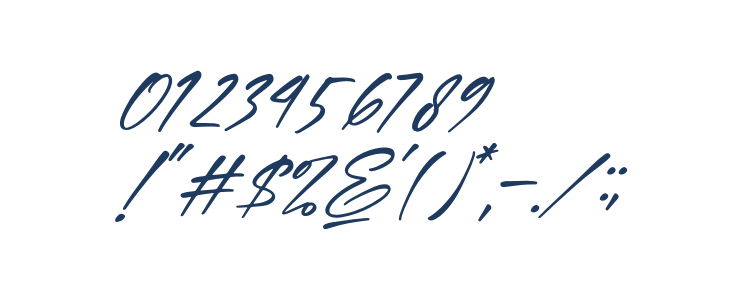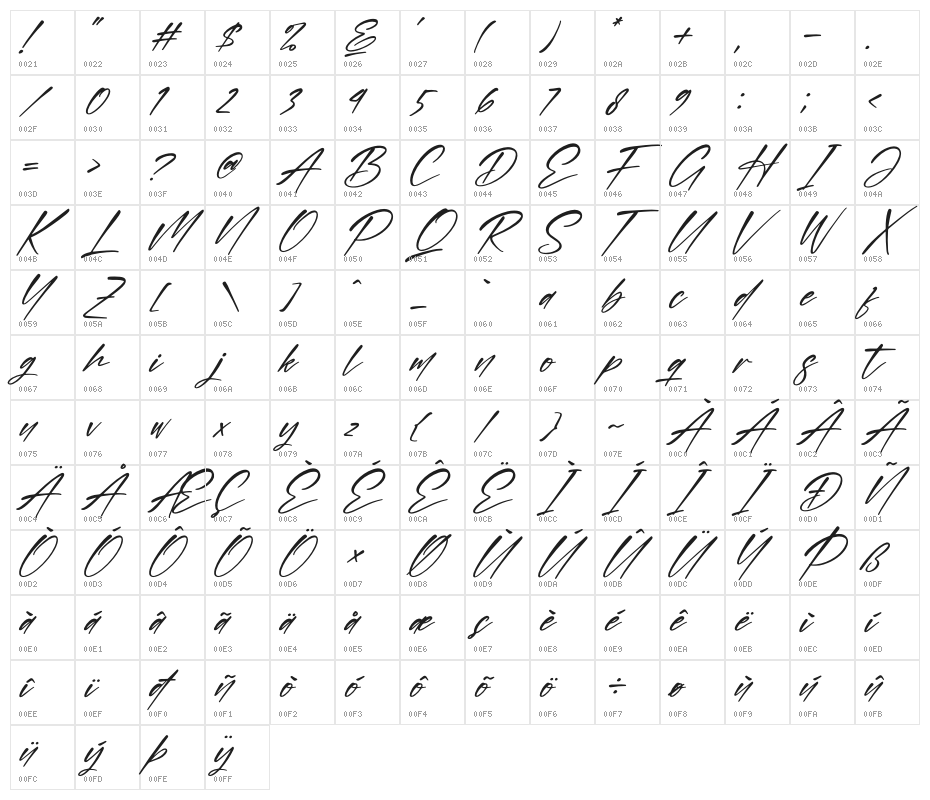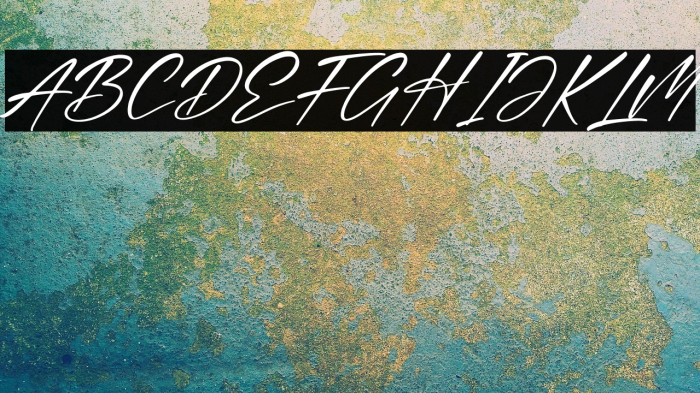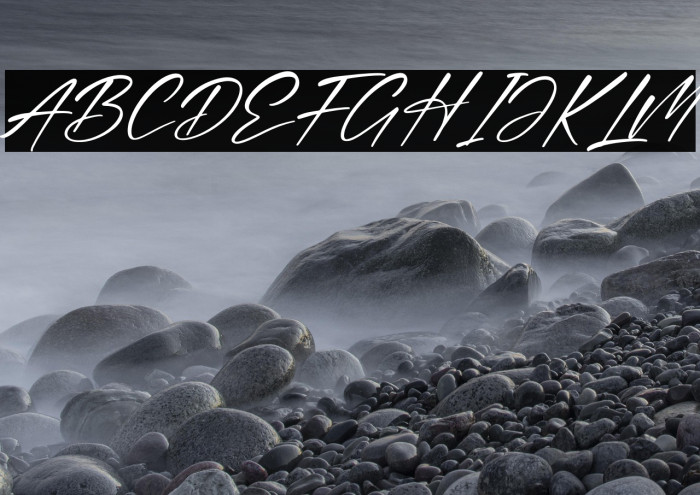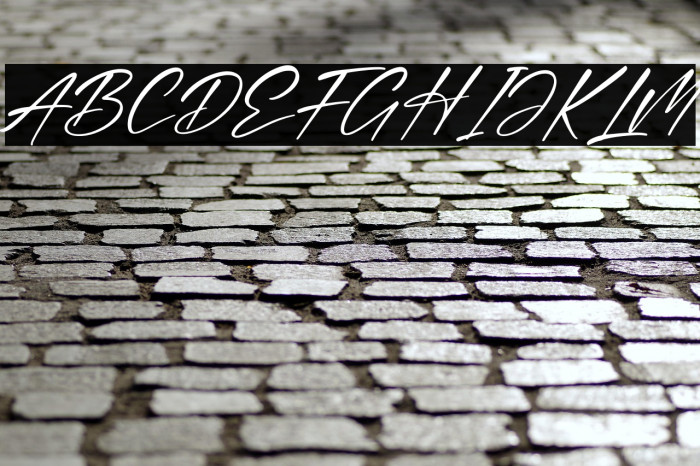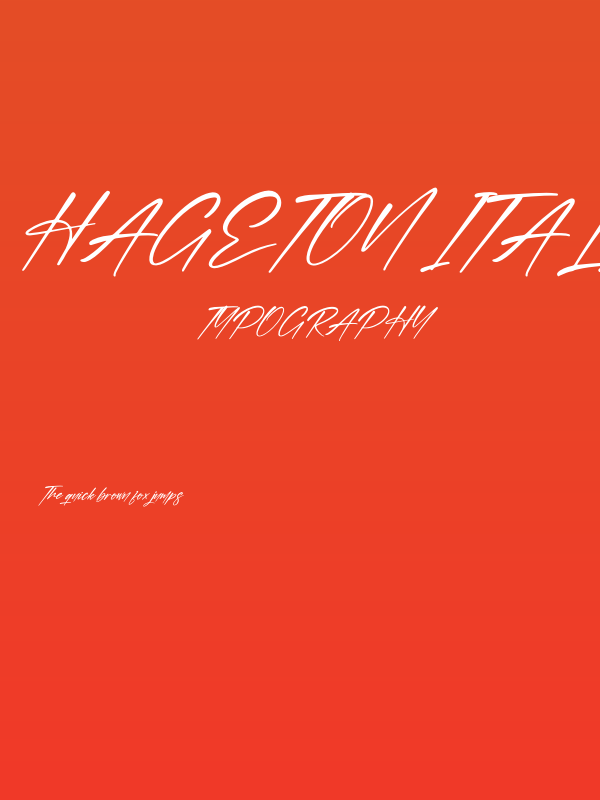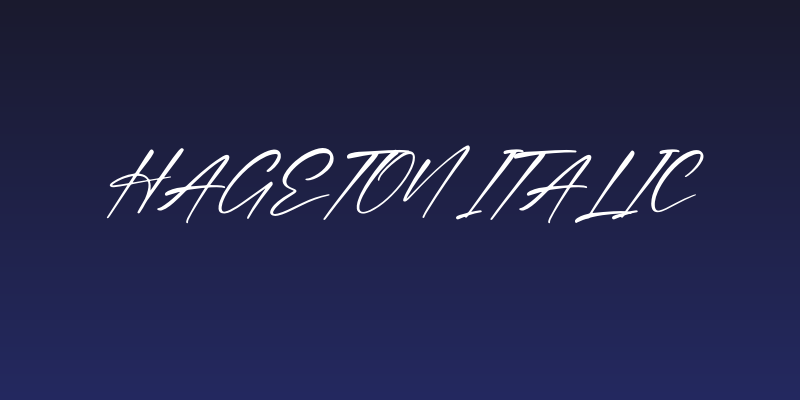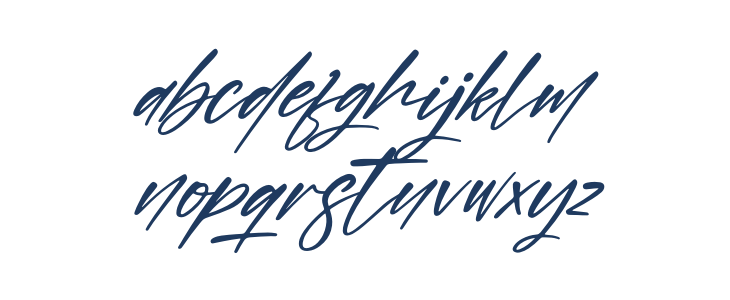
Hageton Italic Font
Hageton Italic Description
This font features a dynamic and fluid script style, characterized by its elegant, flowing strokes and a sense of movement. The letters are connected, creating a seamless and cursive appearance that mimics natural handwriting. The uppercase letters are bold and slightly slanted, while the lowercase letters maintain a consistent rhythm and balance. The numerals and special characters are crafted with the same attention to detail, ensuring a cohesive look throughout. This font exudes a sense of sophistication and creativity, making it suitable for various design applications.
| Proposed Projects | Ideal for wedding invitations, branding, logo design, and personal stationery. |